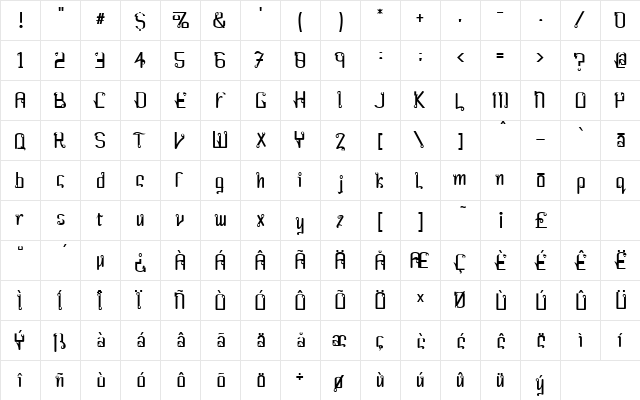
Farang Regular
Design Context for Farang Typeface
Farang is a composed and adaptable typeface that performs quietly and consistently across a wide range of design contexts.
Pro Tip: Pair Farang with a font of contrasting weight or personality to build a more expressive typographic hierarchy.